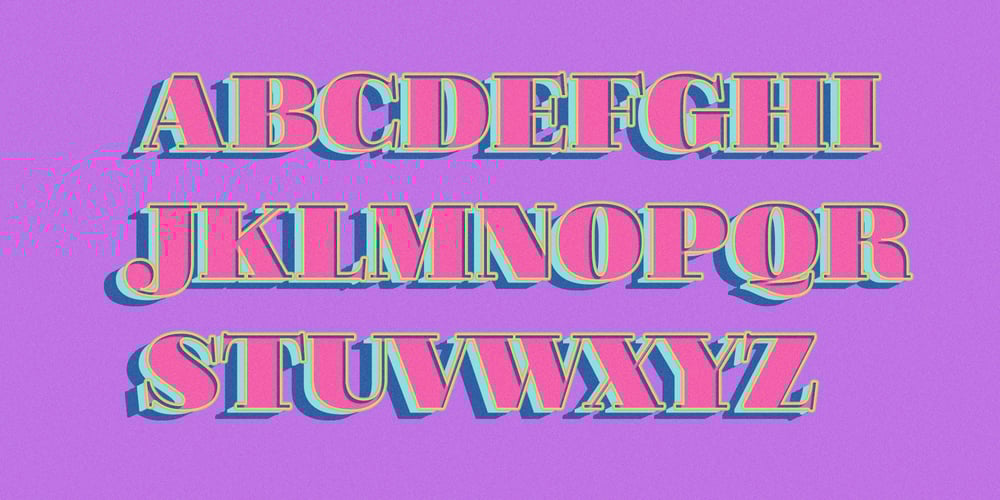
Retroteen Font Family was designed by Seung Hyub Lee and published by Ask Foundry. Retroteen contains 1 styles and family package options. Meet “Retroteen,” the font that takes you on a nostalgic journey back to the vibrant 80s and 90s. The striking contrast between horizontal and vertical strokes adds a unique touch, exuding a bold and dynamic personality.From funky posters and album covers to retro-themed branding and advertisements, this font brings an air of nostalgia and playfulness to any artwork. It is also provides language support for the full Latin alphabet along with Western and Eastern European characters.